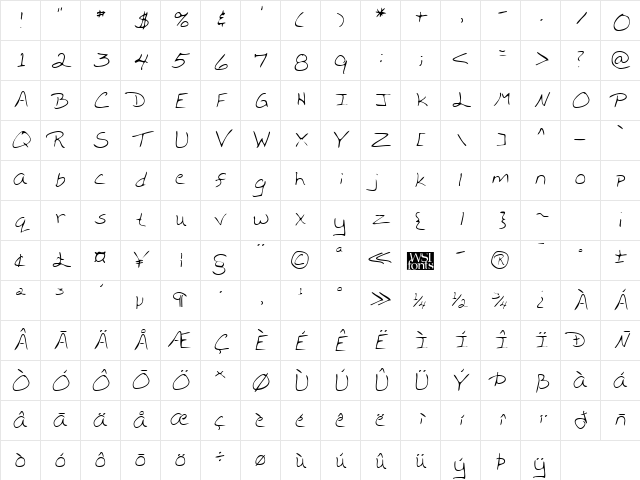
MonicasHand Regular
Design Context for MonicasHand
MonicasHand flows with the natural rhythm of handwritten lettering, making it ideal for designs that call for warmth and personal expression.
Font Pairing: Combine MonicasHand with a simple geometric sans for maximum contrast - the tension between flowing curves and clean structure is a classic typographic pairing.
Pro Tip: Use MonicasHand for short runs of text - names, titles, or taglines. Extended body copy in script faces tires the eye quickly.